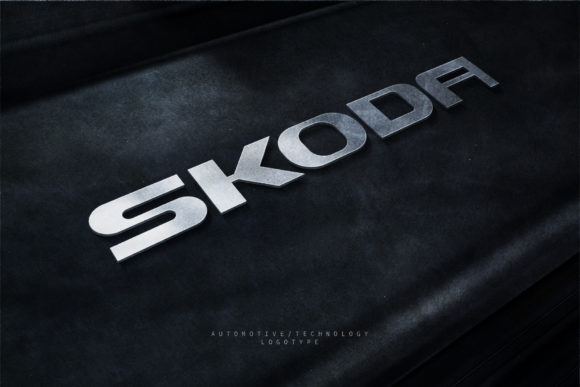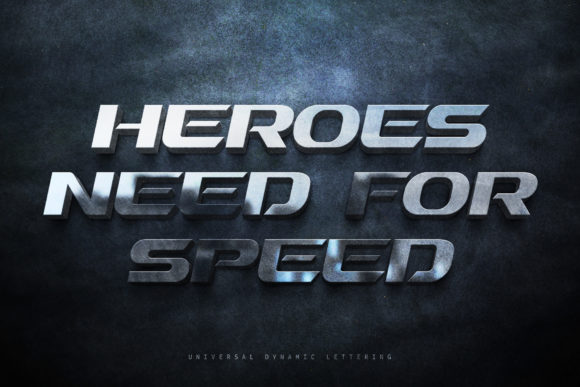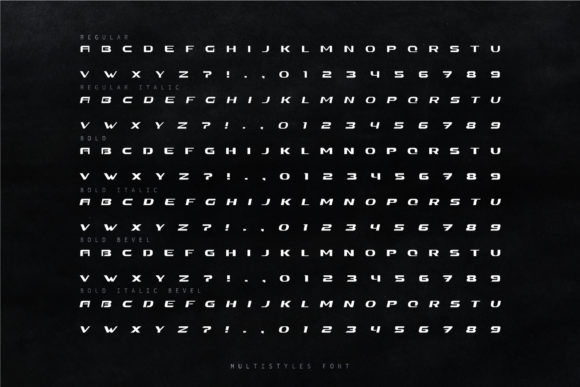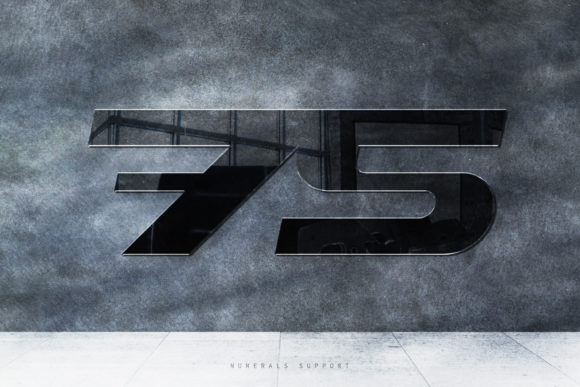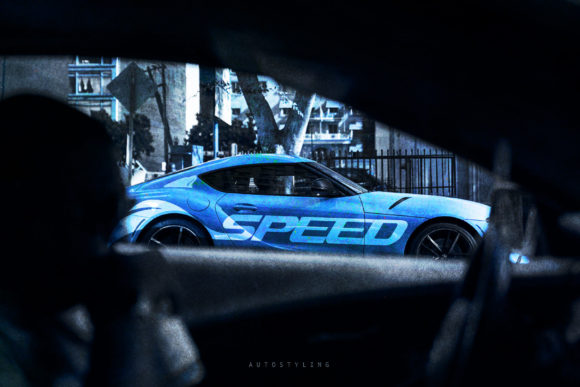
The Perfect Ride for Your Designs: Car Font
There’s nothing quite like the rush of creating something new, especially when it’s a design that’s been stuck in your head for days. You finally sit down at your desk, grab your favorite font, and start crafting. But then, you hit a roadblock – your design needs a little more oomph, a little more attitude. That’s where Car Font comes in.
This bold sporty and assertive display font is the perfect addition to any project. Whether you’re working on a card, branding, labels, or anything in between, Car Font will take your design to the next level. Its versatility and confidence-inspiring style make it a valuable asset for designers looking to elevate their work.
Key Features of Car Font
- Font Family: Car Font is a sans-serif font family designed for use in digital displays and signage.
- Unique Characteristics: Car Font features a distinctive, bold design with rounded edges and a large x-height, making it highly legible at high speeds and in various lighting conditions.
Car Font Review
Overall, I’d say the Car Font is a bold and attention-grabbing font that’s perfect for automotive or speed-related projects. ✨ Here are a few things that work well:
- It’s extremely legible, even at small font sizes, which is great for use in logos or branding.
- The font’s unique shape and design give it a modern, high-tech feel that’s perfect for futuristic or sports-inspired designs.
- It’s highly customizable, with a wide range of weights and styles to choose from.
However, there are a few limitations to keep in mind: ⚠️
- The font may not be suitable for projects that require a more traditional or classic feel.
- It may be difficult to pair with certain other fonts or design elements due to its bold and futuristic design.
- The font’s unique shape and design may not be suitable for all languages or character sets.
Overall, I think the Car Font is a great choice for the right project. It’s a bold and eye-catching font that’s perfect for automotive or speed-related designs, but it may not be the best fit for every project. With a little creativity and experimentation, it’s definitely worth considering for your next design project.
Common use cases for Car Font include:
– Creating eye-catching car dealership signs
– Designing car-themed merchandise, such as t-shirts and stickers
– Adding a touch of retro flair to car-themed graphics and posters
– Experimenting with different font styles and combinations to create unique and attention-grabbing designs.
Getting the Most Out of Car Font
For the most effective use of Car Font, consider the following tips:
– Use it sparingly to avoid overwhelming the design
– Pair it with other fonts for added visual interest
– Experiment with different font sizes and colors to create a cohesive look
– Consider the tone and style of your design when selecting the font style.
Alternatives to Car Font for Designers
Akzidenz-Grotesk
Akzidenz-Grotesk is a sans-serif typeface that was originally designed in the late 19th century. It’s a versatile font that can be used for both body text and headings. Akzidenz-Grotesk is a great alternative to Car Font when you need a clean and modern look without the quirky feel of Car Font. It’s particularly useful for corporate branding and editorial design.
Helvetica
Helvetica is a classic sans-serif typeface that’s widely used in graphic design. It’s highly legible and works well for both digital and print media. Helvetica is a good choice when you need a clean and neutral font that won’t distract from the content. Compared to Car Font, Helvetica is more straightforward and less attention-grabbing, making it suitable for designs that require a professional tone.